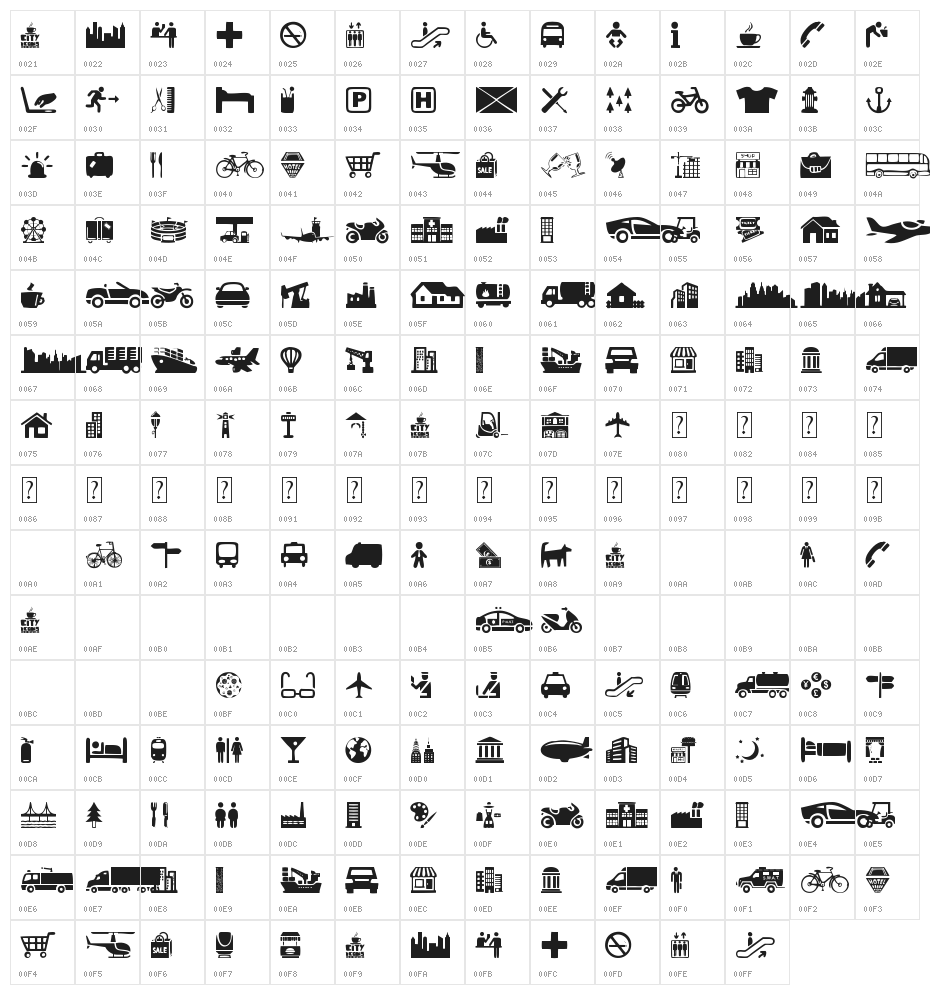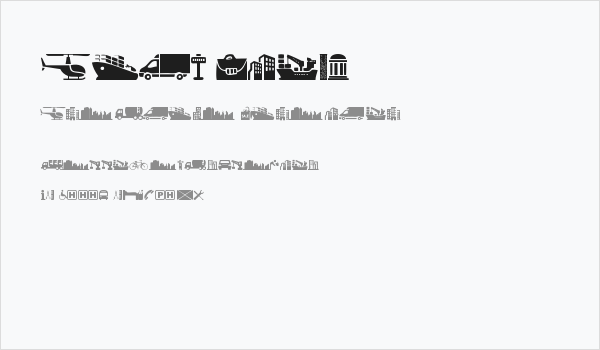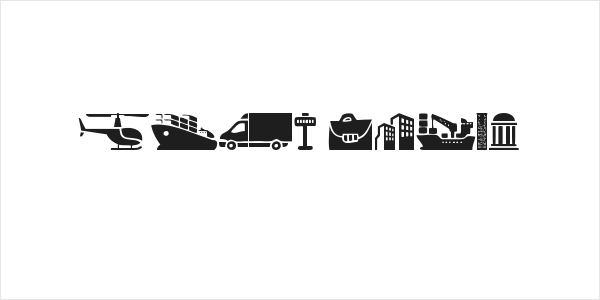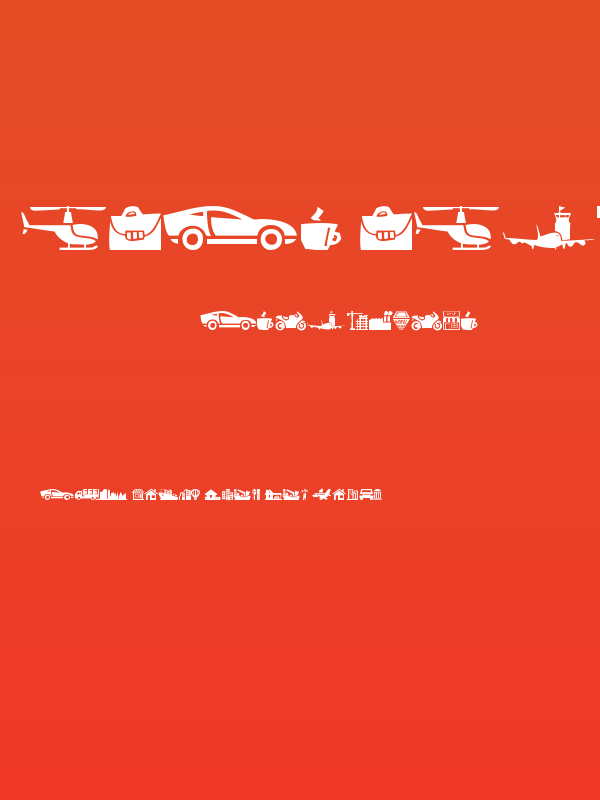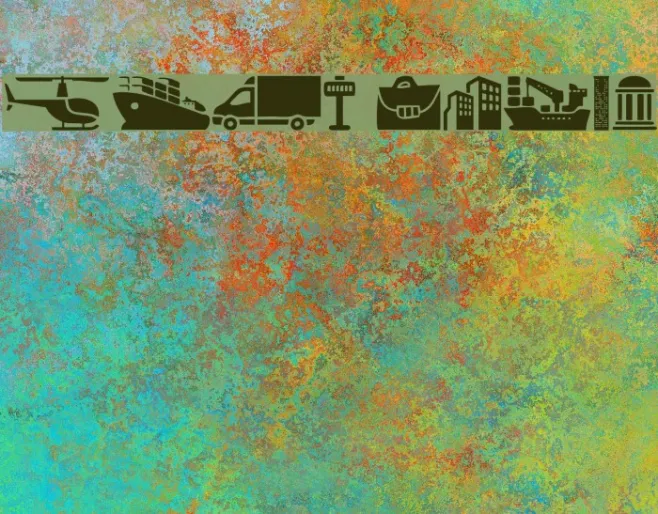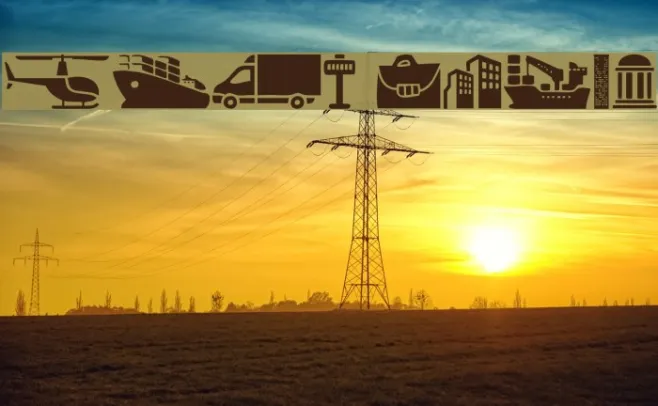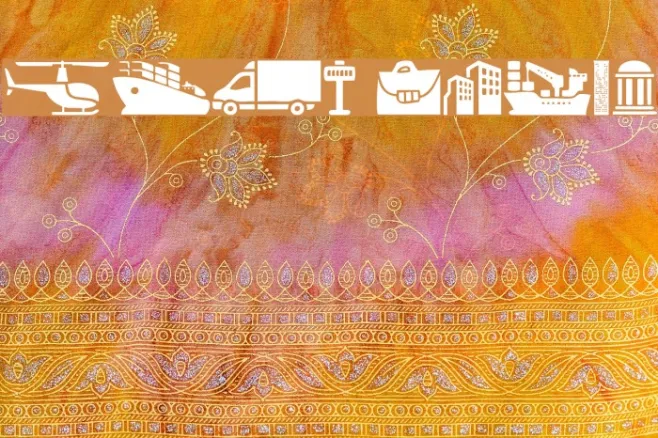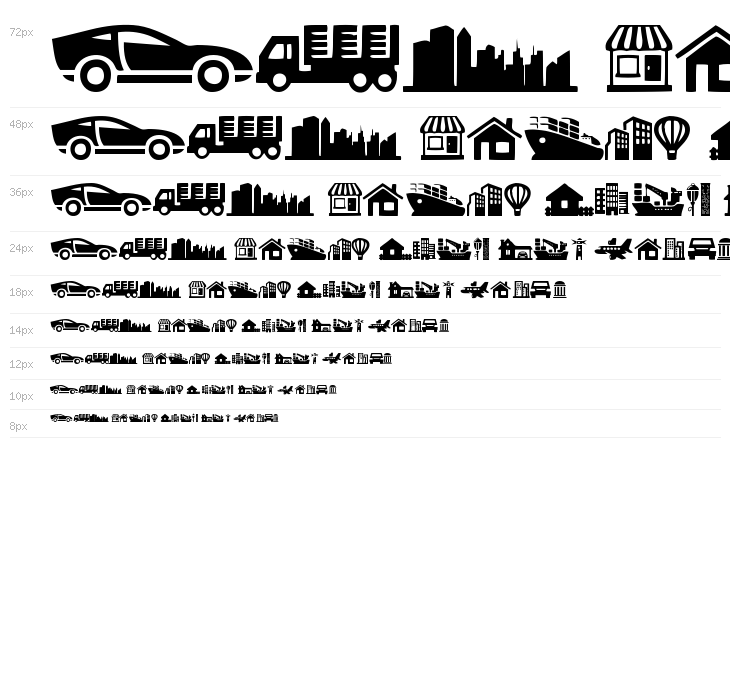
City Icons Font
City Icons Description
A pictogram-style icon set featuring various city-related symbols such as vehicles, buildings, shops, transport, public services, and amenities. The icons are bold, solid, and highly legible, designed for clear communication in signage or wayfinding.
| Overall Style | Modern, Functional, Pictographic |
| Use Case | Signage, Icons, Maps, Infographics |
| Proposed Projects | Wayfinding systems, city maps, public signage, infographics, urban planning presentations, travel guides. |